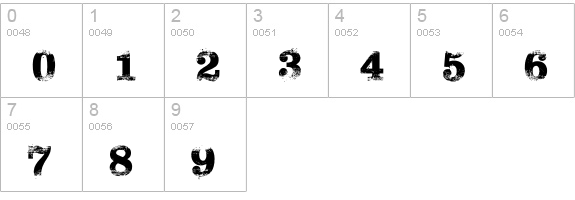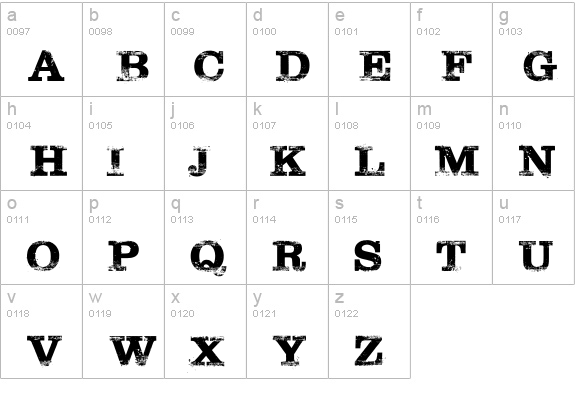
Introducing Tarantino, a bold and captivating font that exudes the essence of vintage cinema and classic typography. With its stylish and dramatic letterforms, Tarantino is the perfect choice for adding a touch of old Hollywood glamour to your designs. This font pays homage to the iconic film director Quentin Tarantino, known for his unique storytelling and visually striking movies. Just like his films, Tarantino font demands attention and makes a lasting impression. Its sharp edges and distinctive curves create a sense of edginess and excitement, while its bold weight ensures legibility and impact. Tarantino font is not only visually stunning but also versatile. It can be used in a wide range of design projects, including movie posters, book covers, logos, and branding materials, to add a touch of sophistication and nostalgia. Whether you're aiming for a retro vibe or simply want to inject some cinematic flair, Tarantino font will effortlessly elevate your designs to a whole new level. What's even better is that Tarantino font is freely available to download at FontsMarket.com. We believe that great design should be accessible to everyone, and that's why we're offering this font free of charge. Now, you can bring the spirit of Tarantino's movies into your own creations without breaking the bank. So, if you're looking for a font that captures the essence of classic cinema, look no further than Tarantino. Download it today from FontsMarket.com and let your designs shine with the allure of the silver screen.